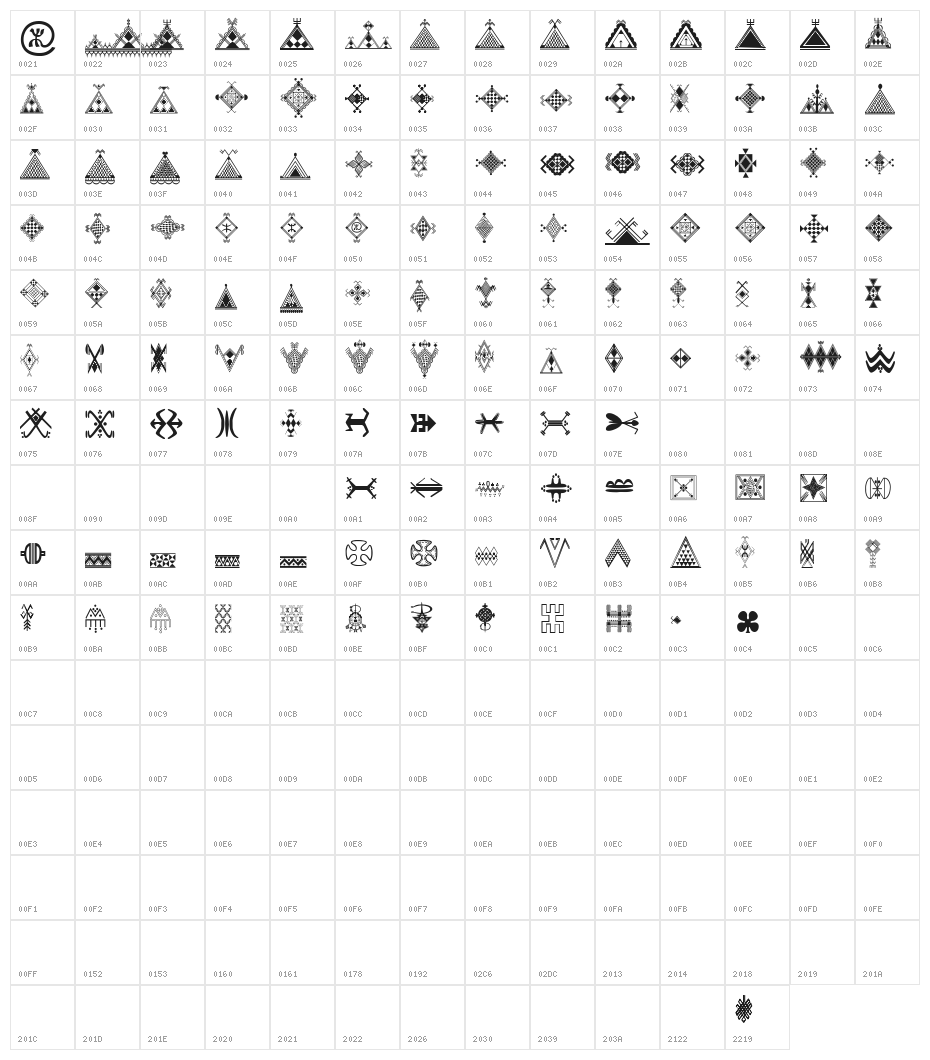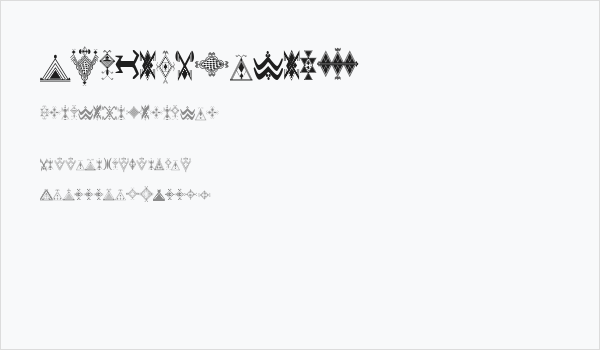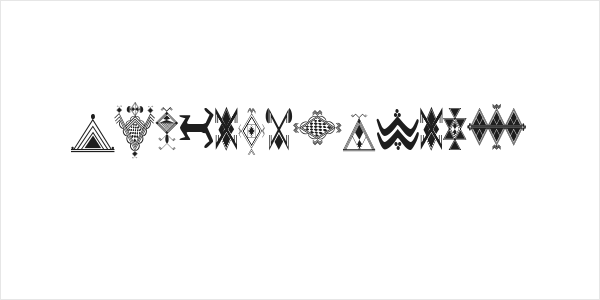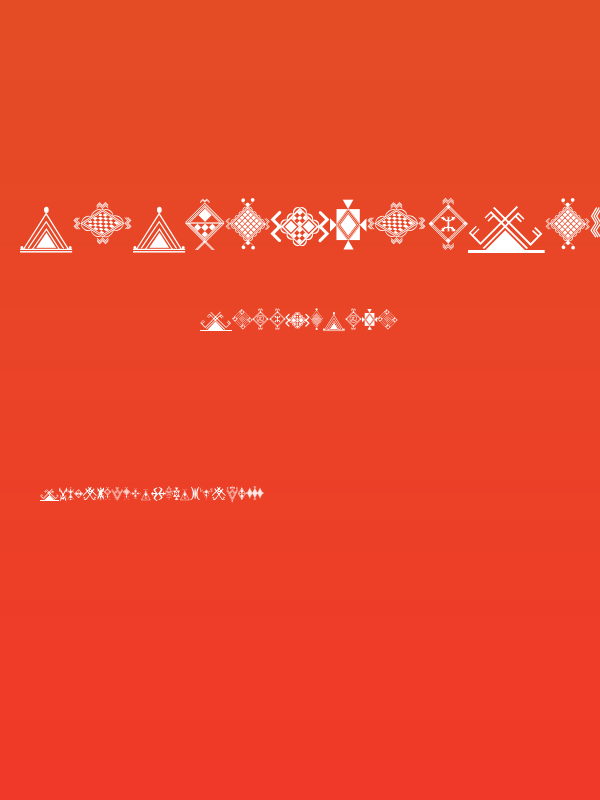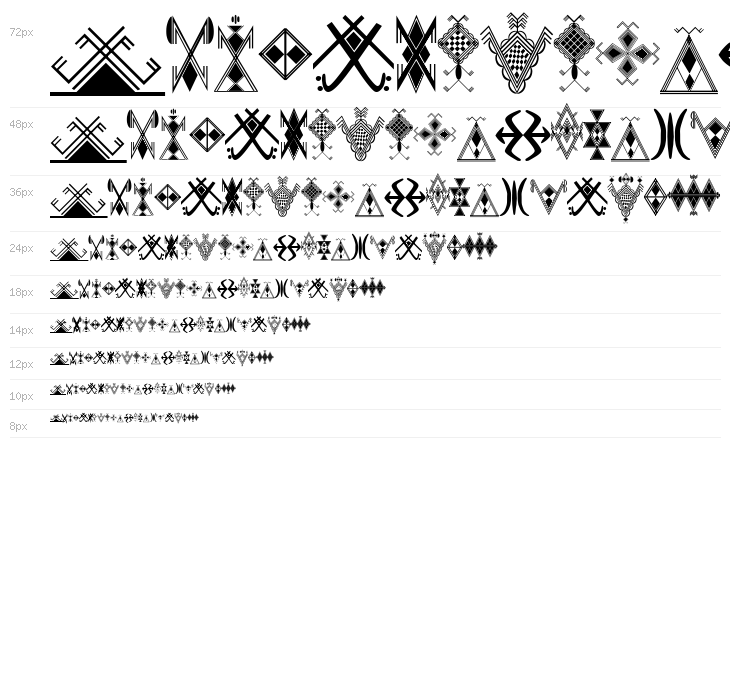
Amazigh Motifs Font
Amazigh Motifs Description
A collection of intricate geometric motifs inspired by Amazigh (Berber) art, featuring symmetrical patterns, triangles, diamonds, and abstract shapes in black and white. The motifs are highly decorative, with repeating elements and a strong sense of symmetry and cultural symbolism.
| Overall Style | Decorative, Ethnic, Geometric |
| Use Case | Borders, Decorative elements, Cultural branding, Art projects |
| Proposed Projects | Textile design, borders, packaging, branding, cultural posters, decorative dividers, jewelry design. |